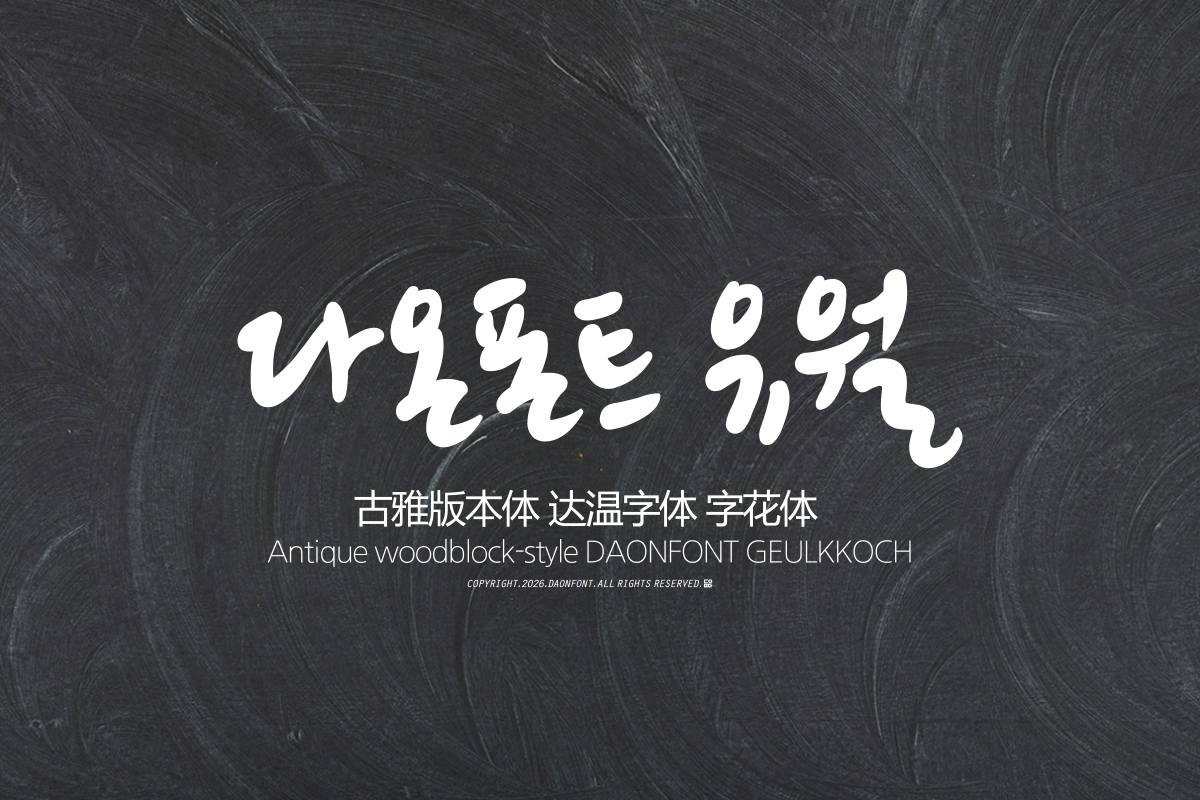
DAON JUNE(B)
'JUNE' font is a calligraphy typeface with a soft and calm concept, consisting of 2,574 Korean characters, as well as English letters, numbers, and special characters. To achieve a natural letter structure, 'JUNE' font uses final consonants with a strong sense of slant and includes a significant amount of kerning data; therefore, depending on the software environment used, the spacing between characters may appear wider.